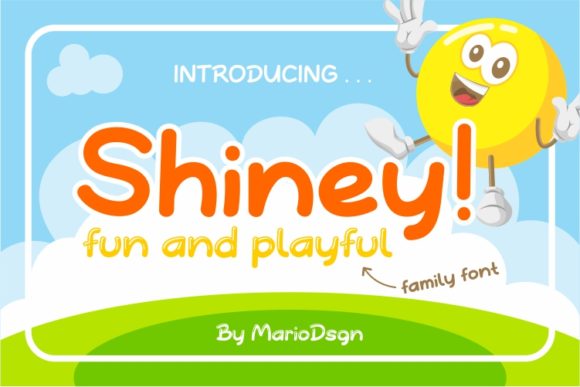
Prepare to be captivated by Shiney Font, a creation of MarioDsgn, a visionary in the realm of typography. This extraordinary display font exudes an infectious charm, radiating joy and playfulness with every letterform. Lose yourself in the magic of Shiney's whimsical curves and playful strokes, perfect for unleashing your creativity in children-themed designs.
With its delightful personality and vibrant energy, Shiney is a beacon of amusement, perfect for adding a dash of lightheartedness and wonder to your next project. Imagine the smiles that will blossom when children encounter your designs adorned with Shiney's enchanting characters.
Picture a realm where colors dance and joy reigns supreme. Combine Shiney's exuberant spirit with a palette of bold and cheerful hues, and you'll conjure up a visual feast that will captivate hearts and leave an enduring impression.
Shiney is not merely a font; it's a gateway to a world where imagination knows no bounds. It beckons you to embrace your inner child, to let your creativity soar and dance among the stars.
So, why settle for ordinary when you can embark on an extraordinary journey with Shiney? Allow this delightful font to ignite your imagination, spread happiness, and create memories that will last a lifetime. Embrace the magic of Shiney today and witness the transformation of your designs into captivating works of art.